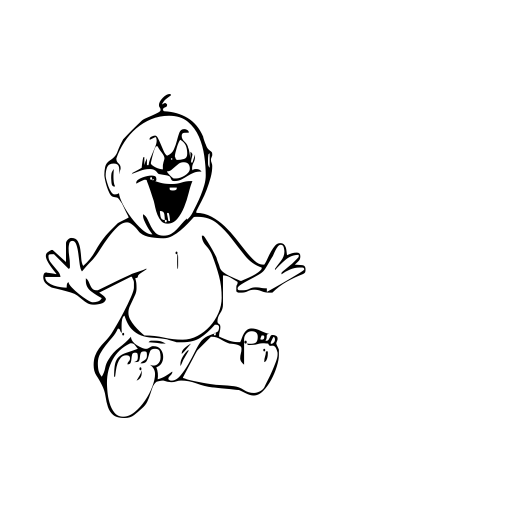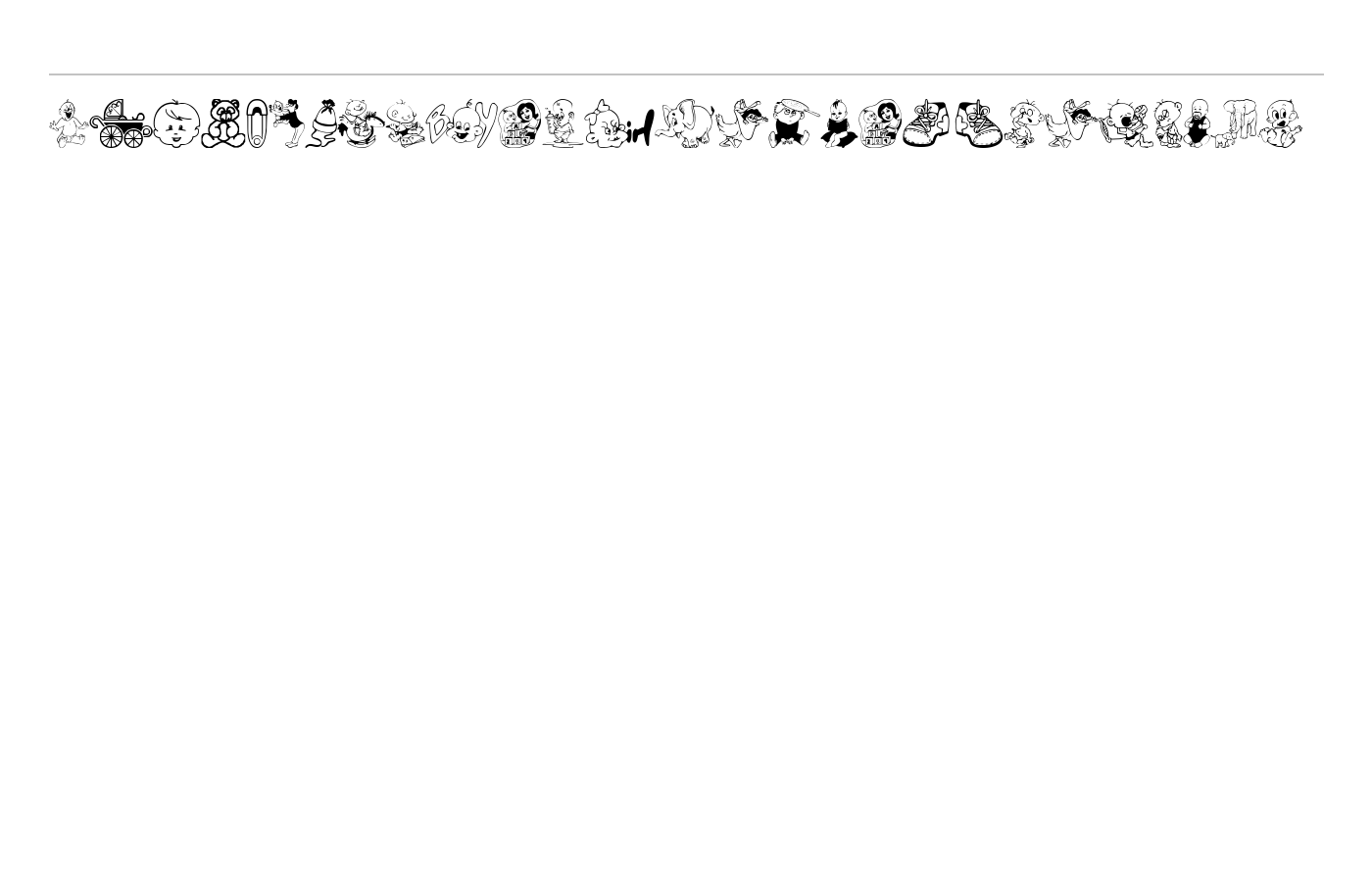
Baby_csp is a playful and whimsical dingbat font composed of various charming baby-themed icons and characters instead of traditional letterforms. Its detailed, hand-drawn style and diverse imagery evoke a warm, nostalgic, and lighthearted feeling, making it perfect for designs aimed at children or family-related themes. This font works wonderfully in creative projects like invitations, nursery décor, and playful branding where fun and personality are key.
baby_csp Font
About baby_csp Font